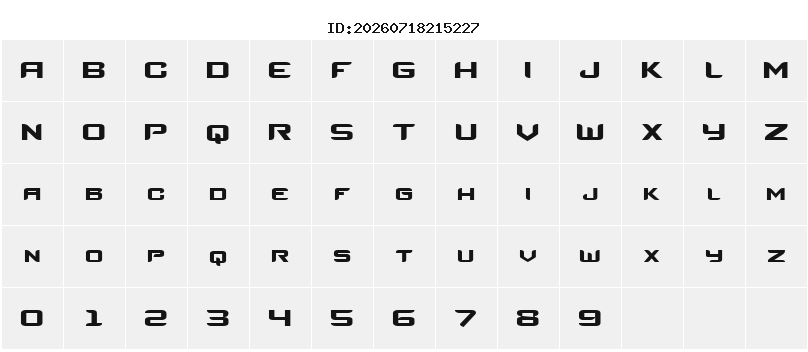
Counter-Strike Preview
• Font Name: Counter-Strike
• Full Font Name: Counter-Strike Regular
• PostScript Name: Counter-StrikeRegular
About Counter-Strike.ttf
Counter-Strike.ttf is a modern, elegant sans-serif font designed for ultimate readability and visual harmony. Perfect for branding, headlines, web design, and print materials.